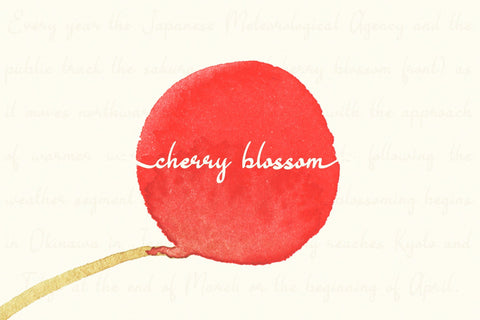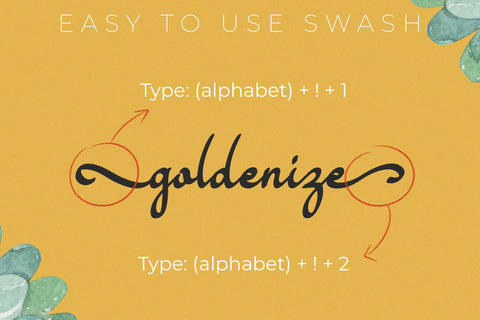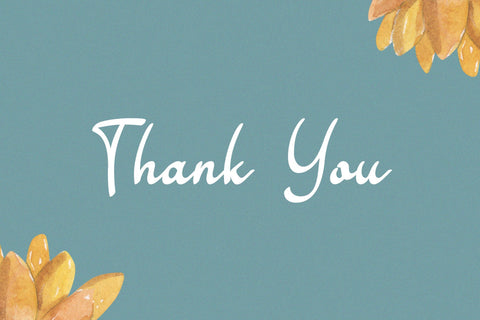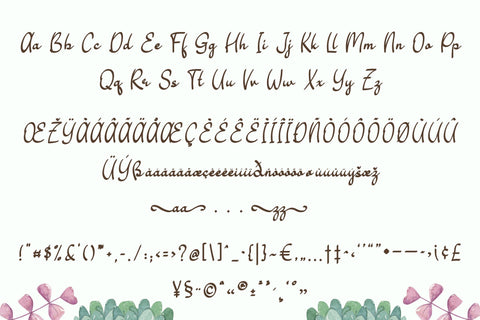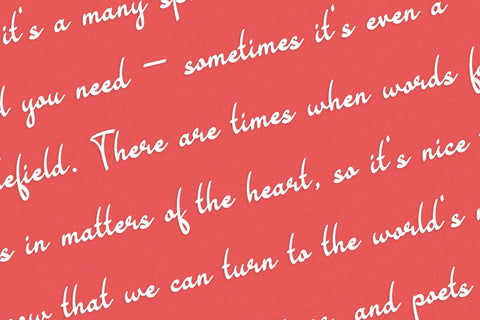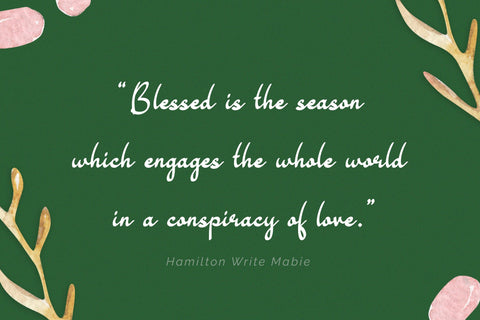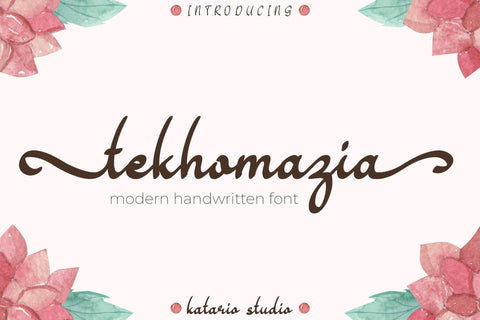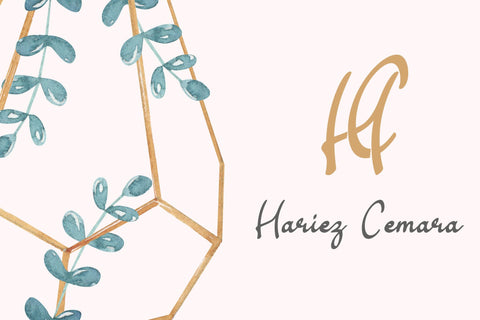
Tekhomazia | Swash Handwritten Font
Tekhomazia is a modern handwritten font. it has a lot of swashes that can be used easily and will look beautiful in your designs. Perfect for any project you have especially for wedding, products, cards, logo, logotype, monogram. This font is PUA encoded wich means you can access all of the cute alternate with ease!